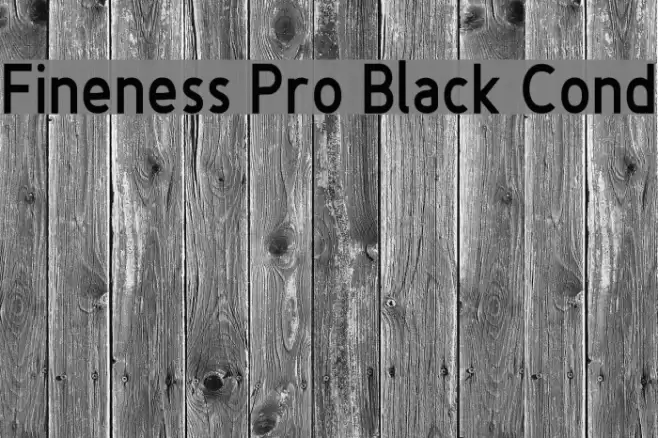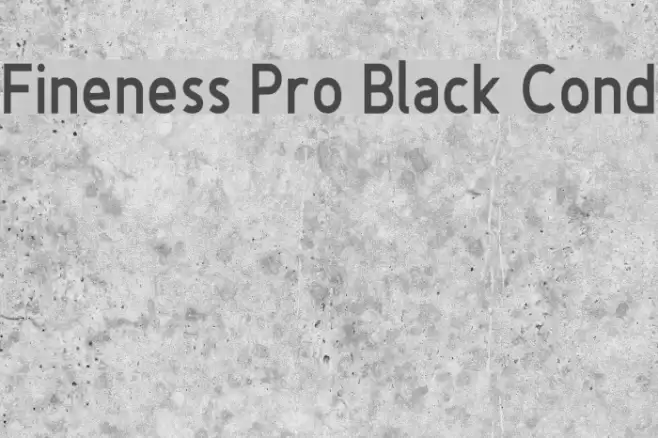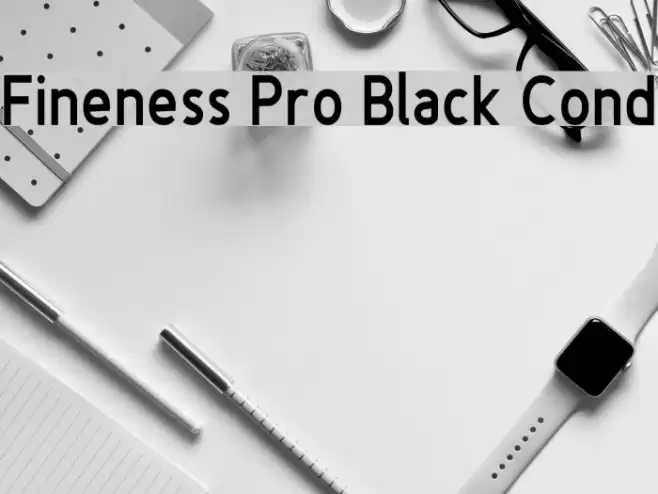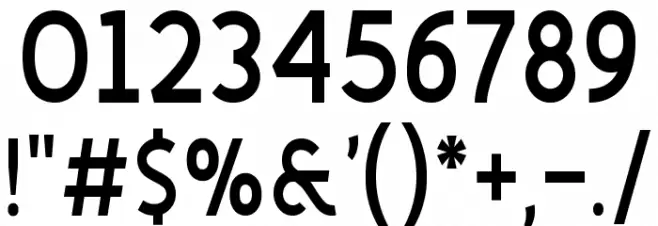
Fineness Pro Black Cond Font
Fineness Pro Black Cond Description
This font features a bold and modern sans-serif design with clean lines and a strong presence. The characters are uniformly thick, providing a consistent and powerful look across all letters and numbers. The uppercase and lowercase letters are well-proportioned, with a slightly condensed width that enhances readability while maintaining a compact appearance. The numerals are clear and distinct, making them suitable for various applications. Special characters are included, offering versatility for different design needs. The overall style is contemporary, making it ideal for projects that require a modern and assertive typeface.
A bold, modern sans-serif font with a slightly condensed width and clean lines from Uncategorized fonts.